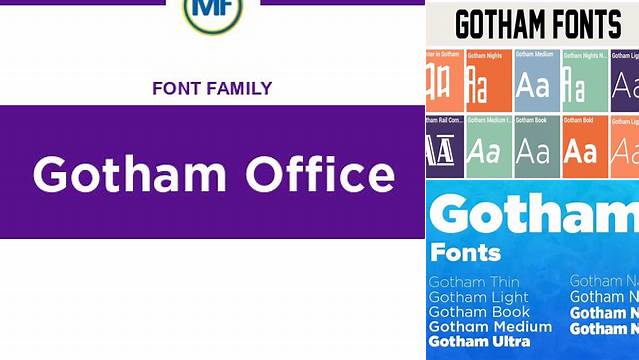
Gotham Office Font Family: Your Ultimate Free Download Guide
Hey guys, are you on the hunt for a slick and modern font that screams professionalism while still being super stylish? Look no further than the Gotham Office font family! It's a real gem, and the best part? You can snag a free download. In this comprehensive guide, we'll dive deep into everything you need to know about Gotham Office, where to find it, how to use it, and why it's a fantastic choice for all your design needs. So, buckle up, because we're about to embark on a font-tastic journey!
Why Gotham Office is a Top Choice
Alright, let's get down to brass tacks: what makes the Gotham Office font family so special? First off, it's the brainchild of the awesome Tobias Frere-Jones. This guy is a legend in the font world, and his creations are known for their clean lines, excellent readability, and timeless appeal. Gotham itself has become a design icon, you know, and you see it everywhere, from branding to websites and even on the Obama campaign back in the day! The Gotham Office family expands on the original, offering a broader range of weights and styles. This makes it super versatile. Whether you're whipping up a presentation, designing a logo, or crafting marketing materials, Gotham Office has got you covered. Its geometric sans-serif design gives off a modern, friendly vibe, which is a huge win for grabbing attention. Think about it, it’s not just a font; it's a statement! And a stylish one at that. The various weights and widths let you add emphasis and create visual hierarchy, which makes your text pop and is super easy to read. In short, Gotham Office is a workhorse, providing clarity, personality, and a touch of elegance to any project. This is why so many designers and businesses love it.
Gotham Office isn't just about looking good; it's also about functionality. Its clear and straightforward letterforms make it incredibly readable, both in print and on screen. This is especially important in today's digital world, where users are bombarded with information. You want a font that’s easy on the eyes and quickly conveys your message. Gotham Office excels here! The font is designed to perform! Because of its structure, the font looks great at different sizes, from tiny text on a mobile screen to large headlines on a billboard. This adaptability makes it a great choice for all your design needs. Additionally, Gotham Office's versatility extends to its character set. It includes a full range of Latin characters, numbers, and punctuation marks. It can handle most common languages, making it an ideal option for international projects. And it supports a wide variety of design purposes. You want a font that works as hard as you do, right? Gotham Office fits the bill perfectly. It's designed for real-world use and can handle the demands of various design tasks with ease. So, whether you're a seasoned designer or just starting, Gotham Office is a smart, practical, and stylish choice!
And let's not forget about the emotional impact. Fonts aren't just about aesthetics; they can influence how people feel. Gotham Office conveys a sense of trustworthiness, modernity, and approachability. This is perfect if you want to build a brand that resonates with your audience. It's about creating an emotional connection. It’s not just text; it's an experience! Plus, it is perfect for various projects, from corporate materials to creative endeavors. The right font can help make your project stand out from the crowd. You're not just selecting a font; you're making a conscious decision about how your brand will be perceived. Gotham Office can help you send the message that you're current, competent, and stylish. It allows your work to make a lasting impression. It offers you a competitive edge in an increasingly crowded market.